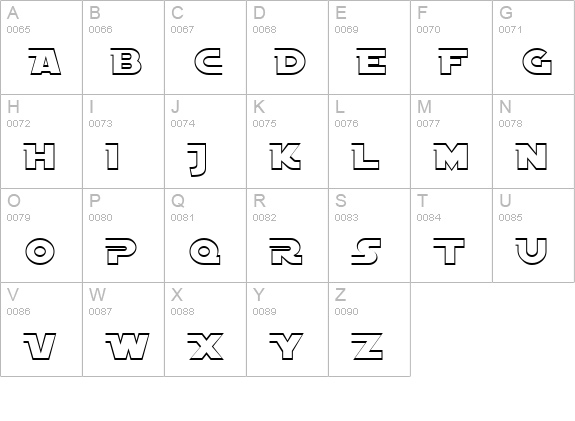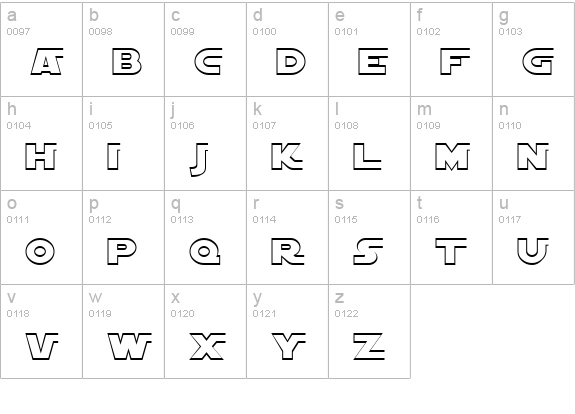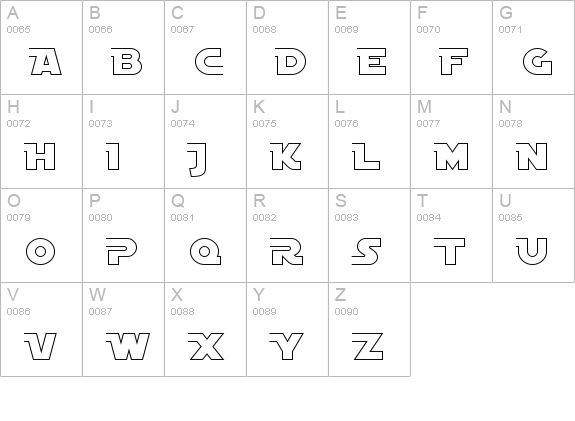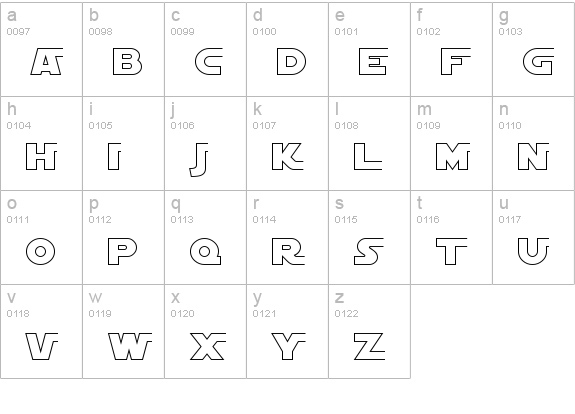
SF Distant Galaxy AltOutline Font Details
SF Distant Galaxy AltOutline font is a stunning typeface that perfectly captures the essence of a distant galaxy, with its futuristic and otherworldly design. Its unique outline style gives it a sense of depth and dimension, making it stand out in any project or design. This font is perfect for those who want to add a touch of science fiction and space exploration to their creative works. Whether you're designing a poster for a sci-fi event, creating a book cover for a futuristic novel, or even giving your website a futuristic makeover, SF Distant Galaxy AltOutline font will elevate your design to a whole new level. And the best part is, this font is completely free! That's right, you can freely download SF Distant Galaxy AltOutline font at FontsMarket.com, without any restrictions. It's a fantastic opportunity to enhance your design projects without any additional cost. With its clean lines, sleek curves, and attention to detail, SF Distant Galaxy AltOutline font is a versatile typeface that can be used for a wide range of purposes. Its legibility ensures that your message will be conveyed effectively, while its unique style adds a touch of creativity and originality. So, why wait? Start exploring the distant galaxies of creative possibilities with SF Distant Galaxy AltOutline font. Download it for free at FontsMarket.com and let your imagination soar to new heights.